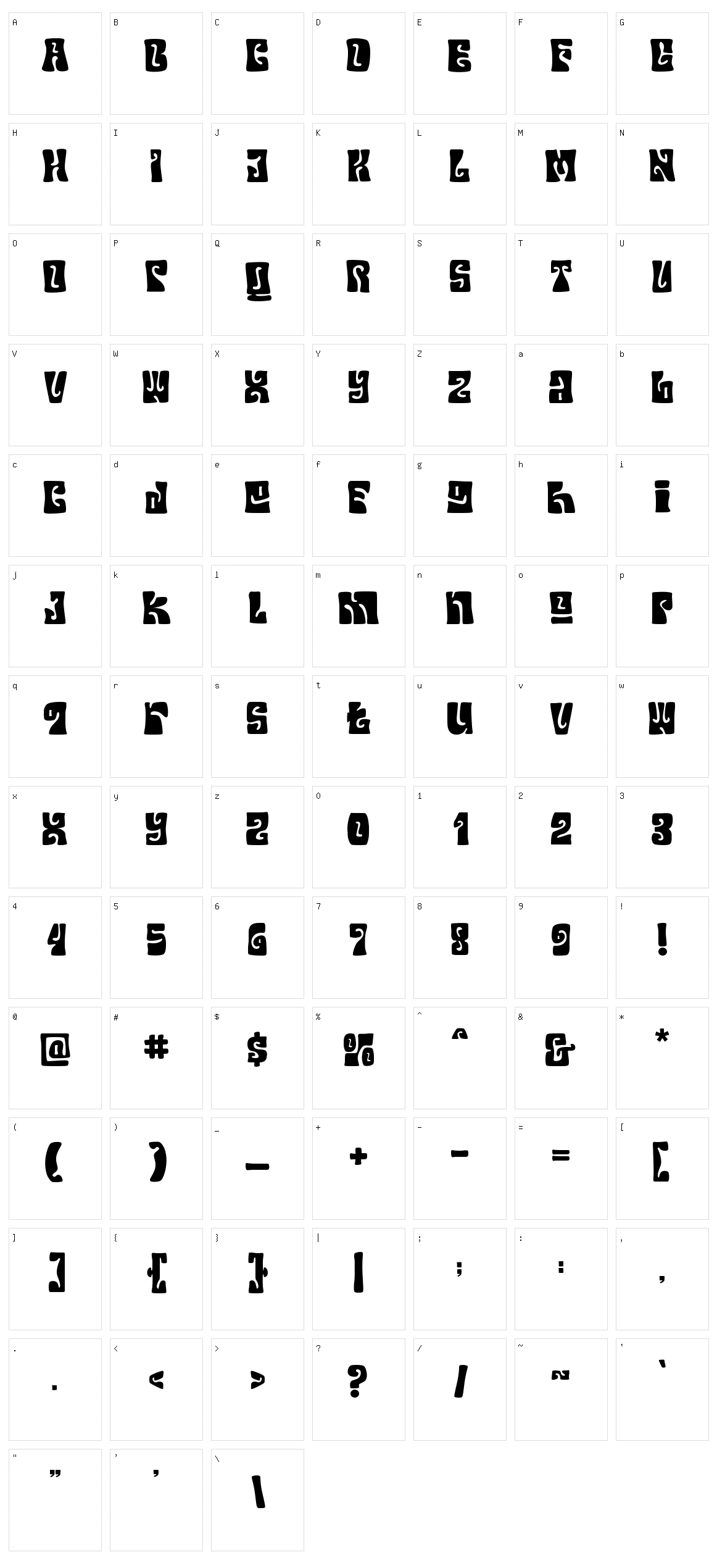
The free font Your Groovy Font is carefully designed by Tokokoo Studio, showcasing a thoughtful balance of creativity and usability and falls under the Groovy font style. When you download the ZIP file, it contains only 30.4 KB of font files, making it lightweight and quick to download. Please review the license details below to understand permitted usage and distribution rights. If license information is not available, we recommend using this font for personal projects only or contacting the author directly for commercial usage permissions.